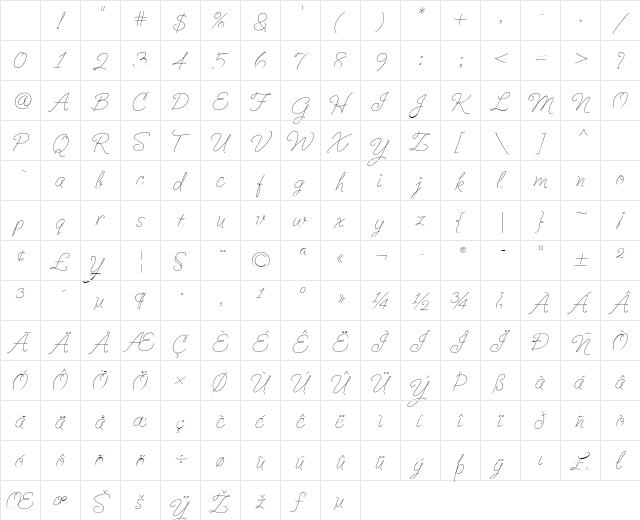
Complete P22 Cruz Ballpoint Pro Regular glyph index. Displaying only characters natively supported by P22 Cruz Ballpoint Pro Regular font.
P22 Cruz Ballpoint Pro is a composed and adaptable typeface that performs quietly and consistently across a wide range of design contexts.
Who designed the P22 Cruz Ballpoint Pro Regular font?
This font was published by Ray Cruz, P22 type foundry, IHOF. Check the technical specs section for copyright and designer details.